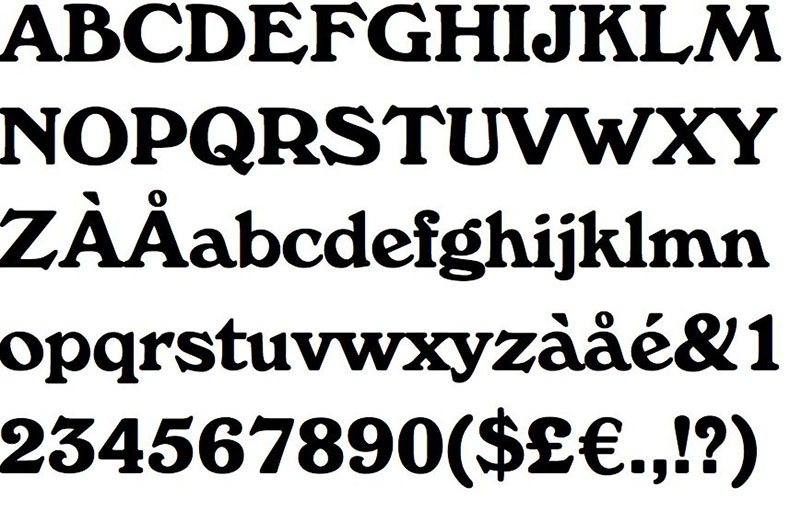
Windsor Font is a display serif typeface that comes with heavy rounded serifs and strong diagonal stress. It was designed by Eleisha Pechey and released by the Stephenson Blake-type foundry.
This is for use in display and headings rather than body text. The capitals M and W are played large, and the upper bowls in P and R are very large.
In Windsor font case a, h, m, and n are right-hand angled stems, and e is an angled cross stroke. In its release note, Bitstream calls its digitization a ‘creative variation on an old-style format
| Style: | Basic, Serif, Display |
| Font Designer: | Eleisha Pechey |
Windsor Font is a display serif typeface that comes with heavy rounded serifs and strong diagonal stress. It was designed by Eleisha Pechey and released by the Stephenson Blake-type foundry.